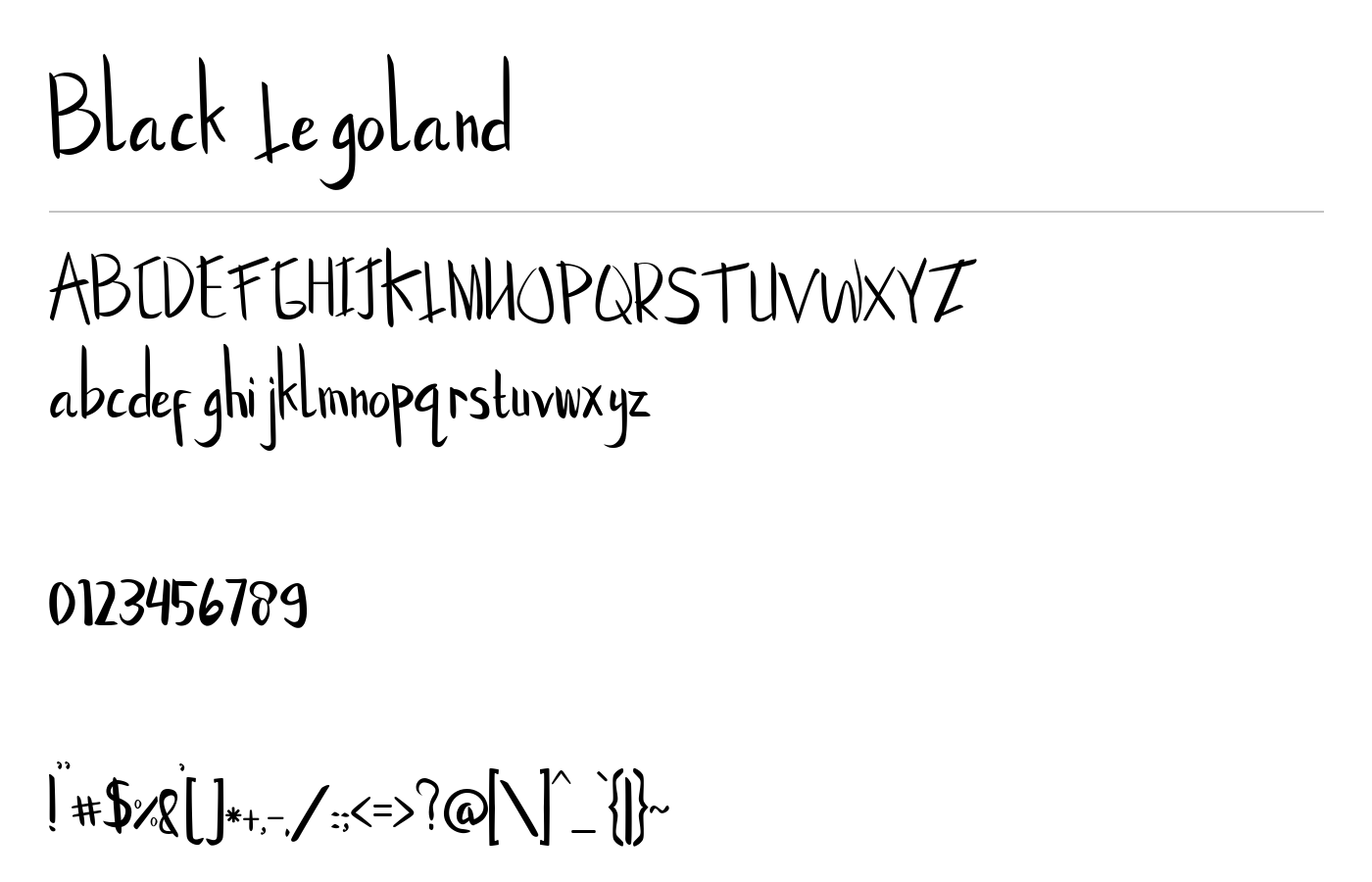
Black Legoland is a playful, handwritten sans serif font with a casual and friendly feel. Its tall, slightly irregular letterforms and uneven strokes give it an organic, hand-drawn charm, making it ideal for creative, informal designs such as children's books, invitations, or quirky branding. This font works best in headlines or short text where a fun, approachable personality is desired.
Black Legoland Font
About Black Legoland Font
| Font family | Black Legoland Font |
| Designer | Ahmad Saiful Mutohhar+Rafantype Studio |